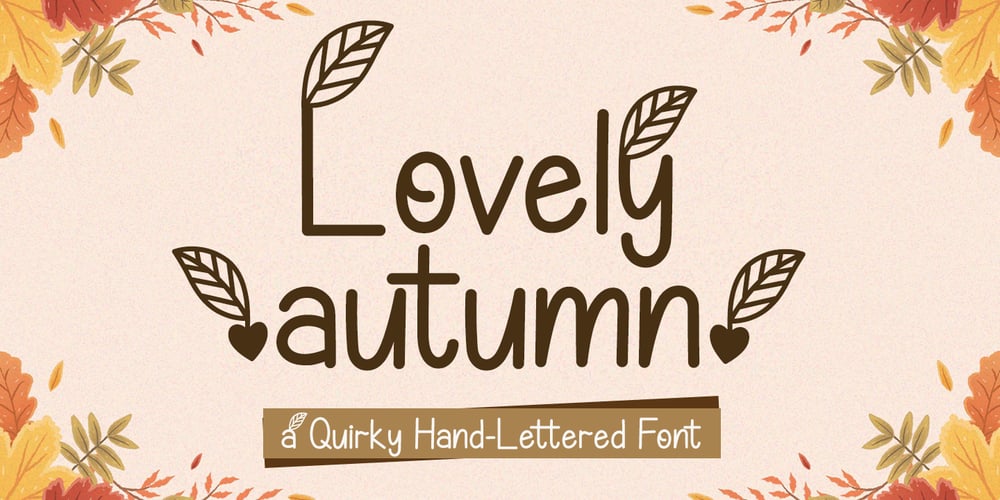
Lovely Autumn
Lovely Autumn font
Lovely Autumn Font Family was designed by Agung Eko Nugroho and published by AEN Creative Studio. Lovely Autumn contains 1 styles and family package options. Lovely Autumn is a sweet and friendly handwritten font. Its natural and unique style makes it incredibly fitting to a large pool of designs. The only limit is your imagination!This font is PUA encoded which means you can access all of the glyphs and swashes with ease! It features a varying baseline, smooth lines, gorgeous glyphs and stunning alternates.